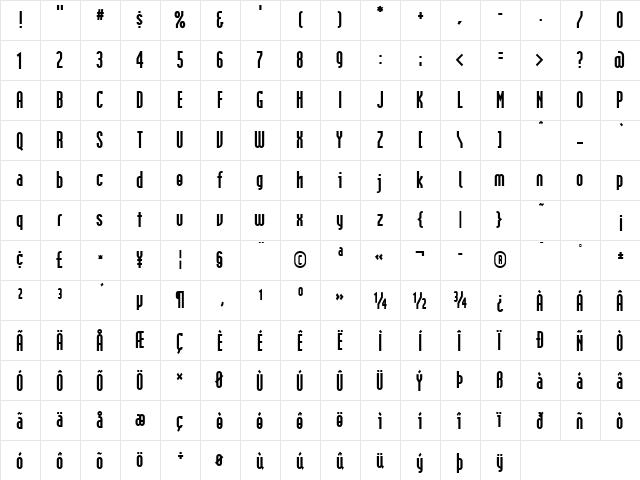
Industrial Heavy Regular
Design Context for Industrial Heavy Typeface
Industrial Heavy is a composed and adaptable typeface that performs quietly and consistently across a wide range of design contexts.